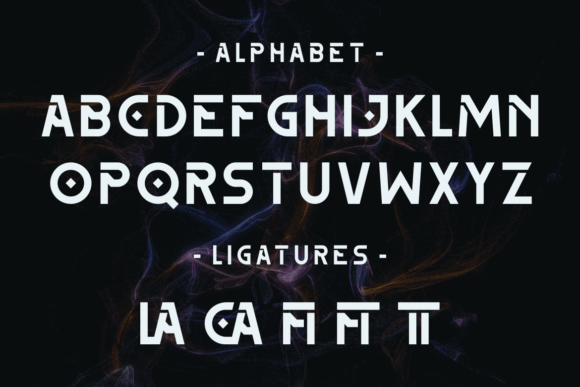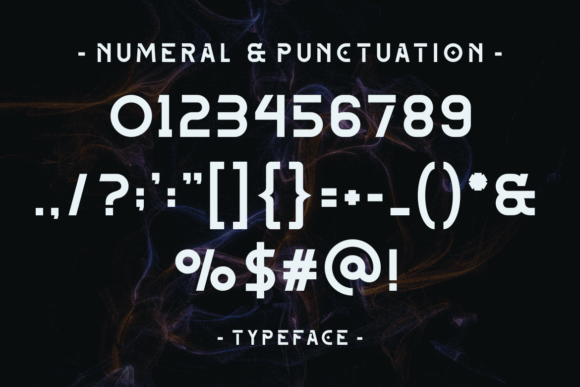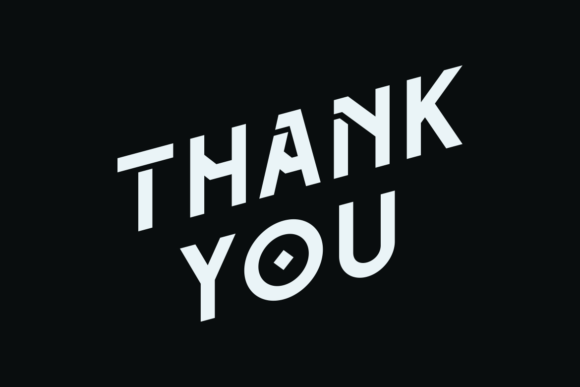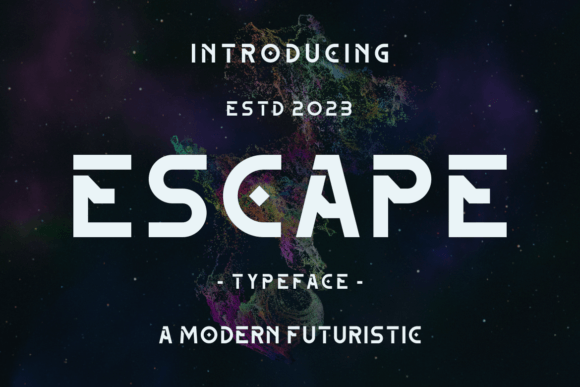
Unleash Your Creativity with Escape Font: A Futuristic and Bold Sans Serif Typeface
In the world of design, typography plays a crucial role in conveying messages, expressing emotions, and creating visual identities. Among the numerous font styles available, sans serif typefaces have gained immense popularity for their clean, modern, and versatile appeal. One such font that has been making waves in the design community is the Escape Font – a futuristic and bold sans serif typeface that is perfect for a wide range of applications.
What is Escape Font?
Escape Font is a sleek and contemporary sans serif typeface designed to make a statement. Its bold and futuristic aesthetic makes it an ideal choice for designers, crafters, and artists looking to add a touch of modernity to their projects. Whether you’re working on a banner, book or movie title, social media post, logo, flyer, or school project, Escape Font is sure to grab attention and leave a lasting impression.
Key Features of Escape Font
- Bold and Futuristic Design: Escape Font boasts a bold and futuristic design that is perfect for creating eye-catching headlines, titles, and captions.
- Sans Serif Style: The font’s sans serif style gives it a clean and modern look that is highly versatile and adaptable to various design contexts.
- Highly Legible: Despite its bold design, Escape Font is highly legible, making it suitable for use in a wide range of applications, from digital media to print materials.
- Easy to Pair: Escape Font can be easily paired with other fonts to create a unique and harmonious typography combination.
Use Cases for Escape Font
Escape Font is an incredibly versatile typeface that can be used in a variety of design projects, including:
- Banners and Posters: Create eye-catching banners and posters with Escape Font that are sure to grab attention.
- Book and Movie Titles: Use Escape Font to create bold and captivating titles for books, movies, and other creative projects.
- Social Media: Add a touch of modernity to your social media posts with Escape Font, perfect for creating engaging headlines and captions.
- Logos and Branding: Use Escape Font to create a bold and memorable logo that reflects your brand’s personality and values.
- Flyers and Brochures: Create visually appealing flyers and brochures with Escape Font that are sure to stand out.
- School Projects: Use Escape Font to add a professional touch to your school projects, presentations, and reports.
Tips for Using Escape Font Effectively
To get the most out of Escape Font, here are some tips to keep in mind:
- Use it Boldly: Escape Font is designed to make a statement, so don’t be afraid to use it boldly and prominently in your designs.
- Experiment with Colors: Try pairing Escape Font with different colors to create a unique and eye-catching visual effect.
- Mix and Match: Experiment with pairing Escape Font with other fonts to create a harmonious and visually appealing typography combination.
- Consider Contrast: Make sure to use Escape Font in a way that provides sufficient contrast with the background to ensure readability.
Escape Font is a powerful and versatile sans serif typeface that is perfect for designers, crafters, and artists looking to add a touch of modernity to their projects. With its bold and futuristic design, high legibility, and ease of use, Escape Font is sure to become a go-to choice for a wide range of design applications. So why not give it a try and unleash your creativity with Escape Font?